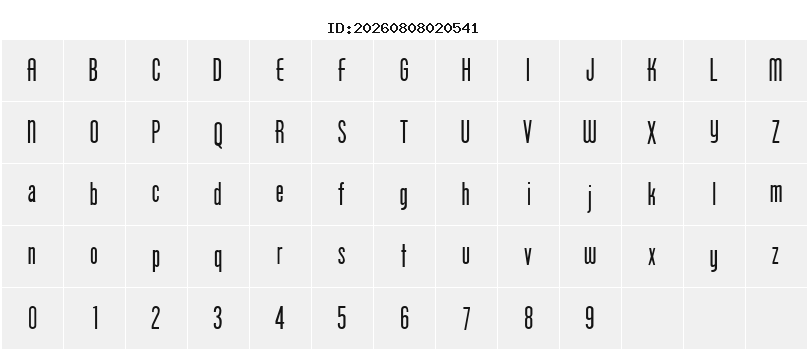
Protege.ttf is a modern, elegant sans-serif font designed for ultimate readability and visual harmony. Perfect for branding, headlines, web design, and print materials.